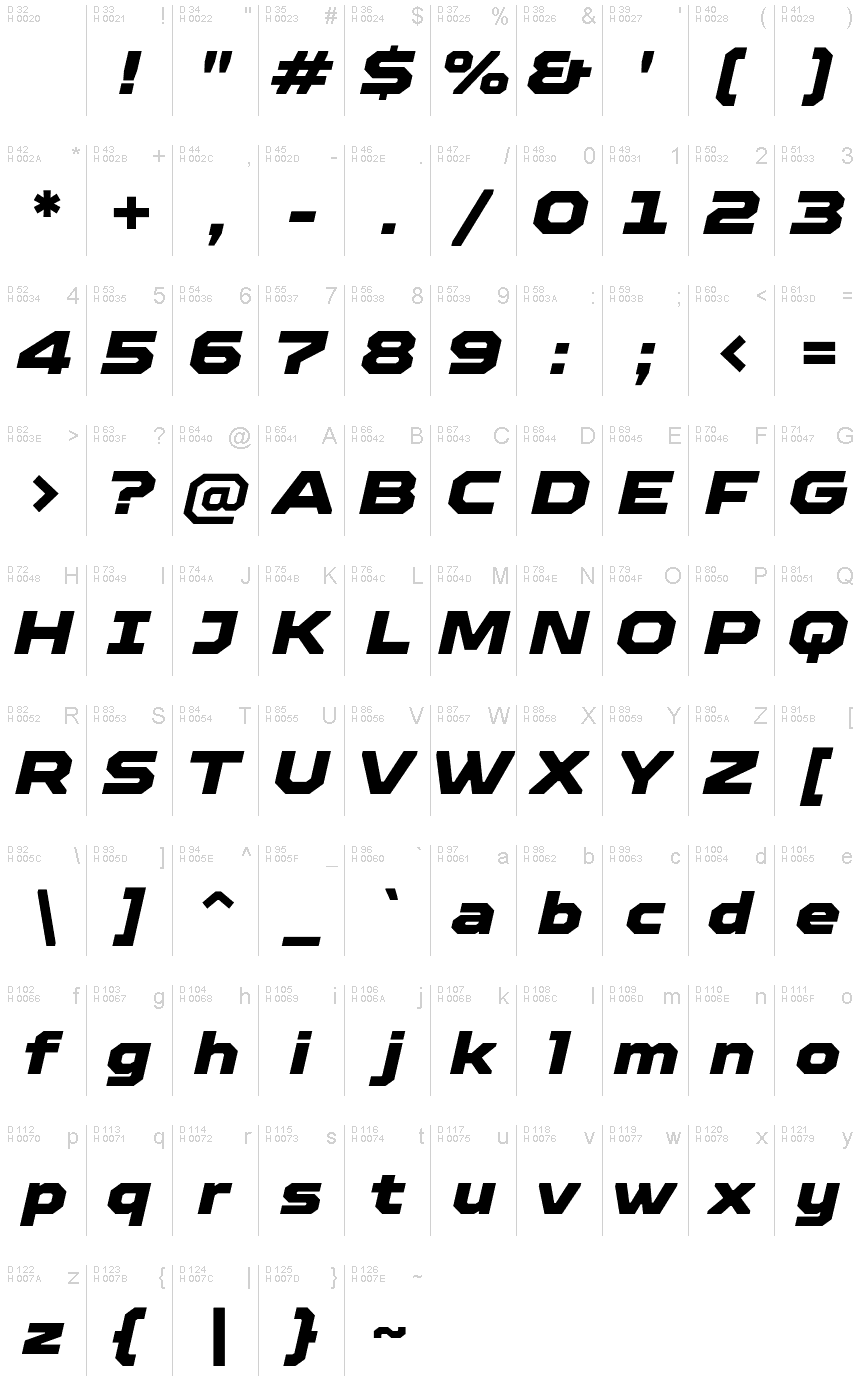
TT Octosquares Trl Exp Blc It
TT Octosquares Exp Blc It is a bold, techno display font designed by TypeType. Its expanded width makes it perfect for projects that require a bold and attention-grabbing headline, such as futuristic posters, gaming logos, or even sci-fi movie titles. With its unique square-shaped design and geometric elements, TT Octosquares Exp Blc It will add a touch of modernity and edginess to your designs. Use it to make your brand stand out in the crowded digital space or to create an unforgettable visual identity for your tech-focused company. This font is sure to make an impact!